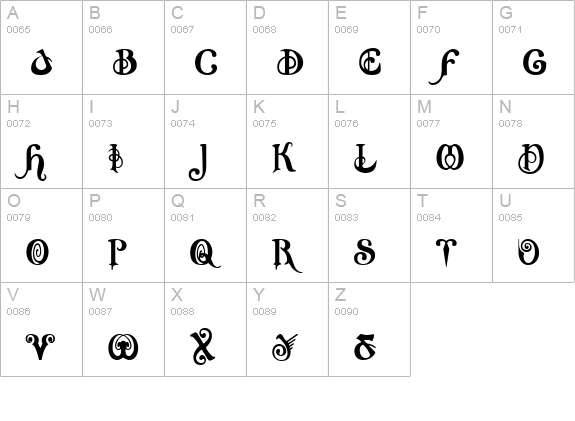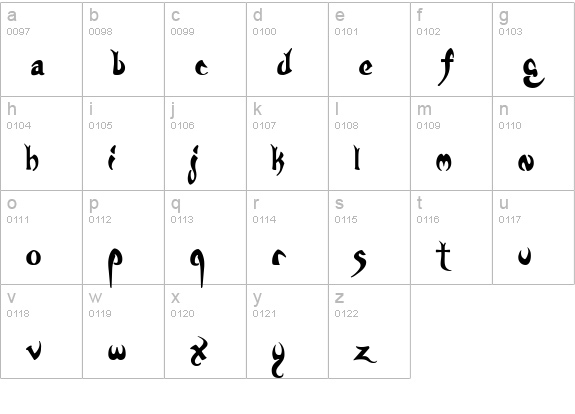
Nymph Font Details
Nymph font is a stunning and elegant typeface that exudes sophistication and charm. With its delicate lines and graceful curves, Nymph is perfect for adding a touch of beauty to any project. This versatile font is ideal for a wide range of designs, from wedding invitations to branding materials to social media graphics. The best part about Nymph font is that it is completely free to download at FontsMarket.com. That's right, you can add this gorgeous font to your collection without spending a dime. Whether you're a designer looking for a new favorite font or just someone who appreciates the beauty of typography, Nymph is sure to become a go-to choice for your projects. Download Nymph font today and elevate your designs with its timeless elegance.